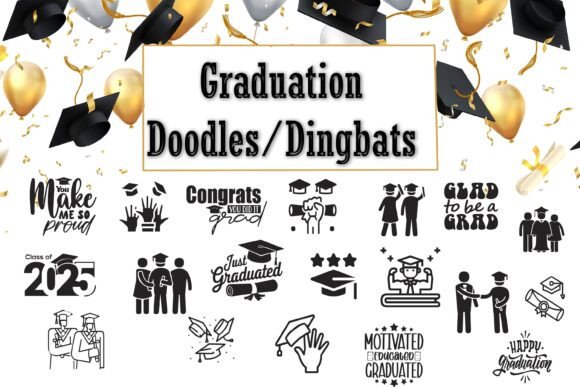
Graduation Doodles Font: A Celebratory Digital Resource for Your Special Day
Graduation is a significant milestone, marking both the end of one chapter and the beginning of another. It’s a day filled with excitement, pride, and anticipation for the future. To commemorate this momentous occasion, a unique and festive digital tool can add a personal touch to your celebrations: the Graduation Doodles Font. This dingbat font, accompanied by a comprehensive guide on its usage, offers a creative way to enhance your graduation-themed projects, from greeting cards and invitations to social media posts and more.
What is the Graduation Doodles Font?
The Graduation Doodles Font is a specially designed digital font that features doodle-style images and letters related to graduation. Unlike traditional fonts, this dingbat font includes graphical elements that can be used to add a decorative and thematic touch to various projects. It’s an excellent resource for anyone looking to create personalized and visually appealing graduation-themed content.
Key Features of the Graduation Doodles Font
- Doodle-style images and letters: The font includes a wide range of doodle-style images and letters that are directly related to graduation, such as graduation caps, diplomas, and celebratory symbols.
- Ease of use: The font is designed to be user-friendly. Simply type the corresponding letter or use the included images to add a personal touch to your projects.
- Versatility: The Graduation Doodles Font can be used in various projects, including greeting cards, postcards, scrapbooks, planners, journals, social media posts, invitations, posters, and more.
How to Use the Graduation Doodles Font
Using the Graduation Doodles Font is straightforward and fun. Here are some ideas and tips on how to incorporate it into your graduation-themed projects:
Coloring the Images
One of the unique features of the Graduation Doodles Font is the ability to color the images just like you would with any font. This can be done using graphic design software such as Adobe Photoshop or Illustrator. Simply import the font, select the desired image or letter, and apply your favorite colors. This feature allows for endless customization and creativity.
Adding Background Images
To further enhance your projects, you can add background images to the Graduation Doodles Font images. This can create a more dynamic and visually appealing design. Use a photo editing or graphic design software to layer the font images over a background of your choice, whether it’s a solid color, a pattern, or a photograph.
Using Plain Text
For a more subtle approach, you can use the Graduation Doodles Font as plain text. This is ideal for projects where you want to convey a message without overwhelming the design with images. The font can be used in word processing software or directly in social media platforms that support custom fonts.
Creating Your Own Clipart
For those with a creative streak, the Graduation Doodles Font offers the opportunity to combine images into your own unique clipart. Use graphic design software to arrange and layer the images in a way that tells a story or represents the graduate’s journey. This can be a fun and rewarding way to create something truly personalized.
Project Ideas Using the Graduation Doodles Font
The versatility of the Graduation Doodles Font means it can be used in a multitude of projects. Here are some ideas to get you started:
- Greeting Cards: Create personalized graduation greeting cards for the special day.
- Postcards: Design postcards to commemorate the occasion, either to send to friends and family or to keep as a memento.
- Scrapbooks: Add a personal touch to graduation scrapbooks with doodle images and letters.
- Planners and Journals: Decorate planners and journals with graduation themes, making them unique keepsakes.
- Social Media Posts: Stand out on social media with custom graduation announcements and posts.
- Invitations: Design custom graduation party invitations that set the tone for the celebration.
- Posters: Create eye-catching posters to display at graduation parties or in the graduate’s room.
The Graduation Doodles Font is a valuable resource for anyone looking to add a personal and celebratory touch to their graduation-themed projects. With its easy-to-use design, versatility, and included JPG images, it’s an excellent tool for creating unique and memorable content. Whether you’re a graduate, a family member, or a friend, this dingbat font offers a creative way to celebrate the achievement and mark the beginning of a new chapter.